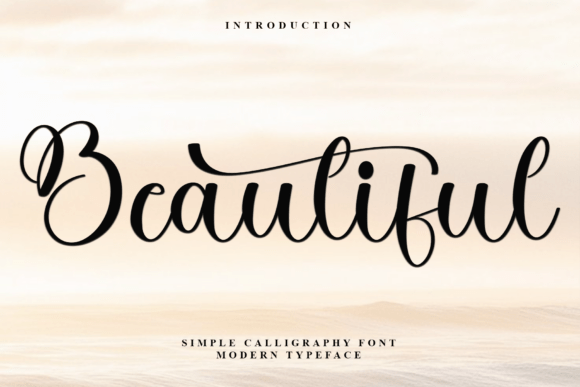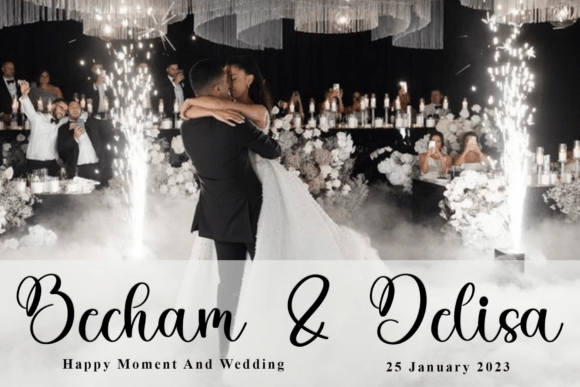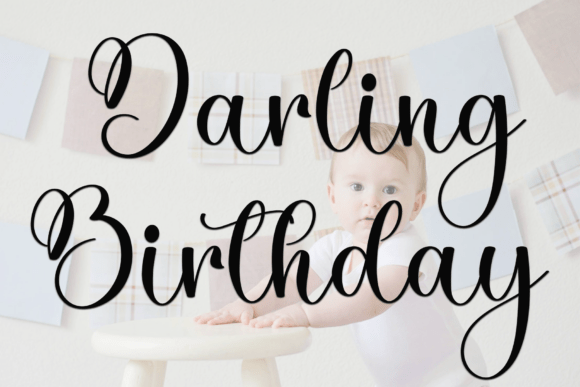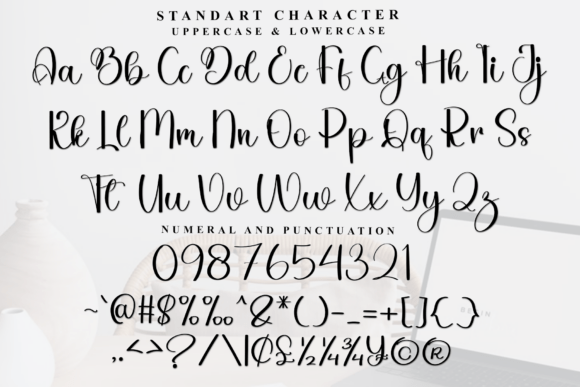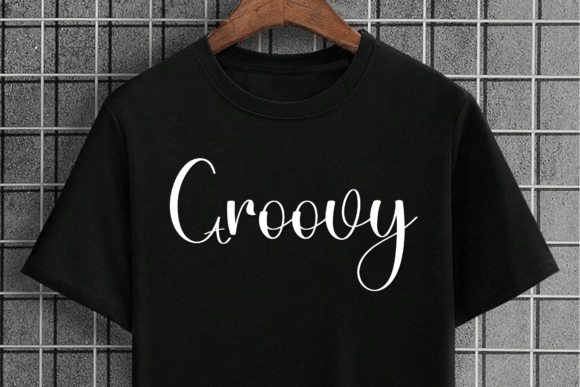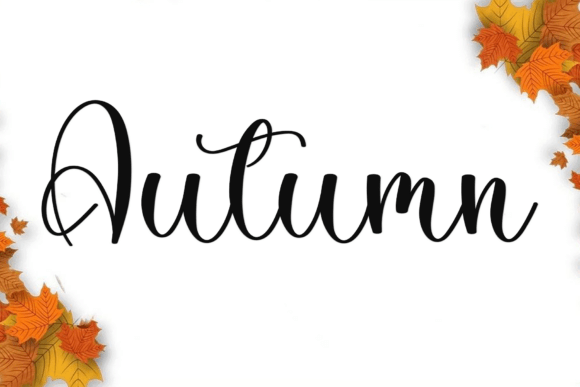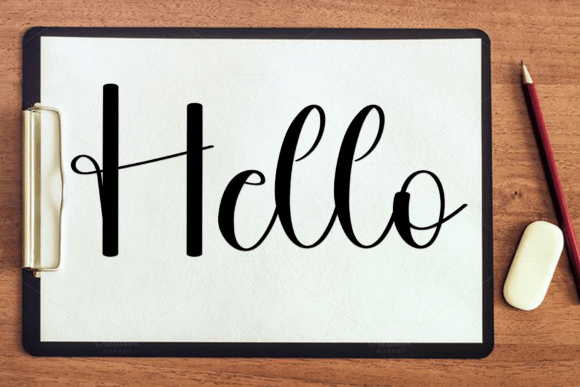
Get Ready to Deck the Halls with Beautiful Font
There’s nothing quite like the feeling of designing a holiday project, surrounded by twinkling lights, warm cups of hot cocoa, and the soft glow of a Christmas tree. The magic of the season is in the air, and the right font can make all the difference. That’s where Beautiful Font comes in – a festive and merry typeface that captures the spirit of the holiday season in all its glory.
Perfect for greeting cards, gift tags, and holiday-themed projects, Beautiful Font adds a touch of enchantment to your designs with its decorative elements and whimsical flair. Whether you’re a seasoned designer or just looking to add some holiday cheer to your typography, this font is a must-have. With its PUA encoding, you can access all of the amazing glyphs and ligatures with ease, making it a valuable addition to any designer’s toolkit.
Key Features of Beautiful Font
- Unique Characteristics: Includes a wide range of ligatures, swashes, and flourishes for a more elegant look
Designer Review: Beautiful Font
At first glance, Beautiful Font ✨ seems like a stunning addition to any design project. The elegant, cursive script is perfect for headings and titles, adding a touch of sophistication to any layout. The font is highly legible, even at smaller sizes, making it ideal for body text as well.
- ✨ Elegant, cursive script that adds a touch of sophistication
- ✨ Highly legible, even at smaller sizes
- ✨ Perfect for headings and titles
- ✨ Suitable for body text as well
However, there are some limitations:
- ⚠️ The font may be too ornate for some designs, potentially overwhelming the content
- ⚠️ May not be the best choice for sans-serif or modern designs
- ⚠️ Limited character set, which may cause issues with certain languages
Overall, Beautiful Font is a great addition to any designer’s toolkit. While it may not be suitable for every project, its elegance and legibility make it a solid choice for those looking to add a touch of sophistication to their designs.
Tips for Getting the Most Out of Beautiful Font
Use Beautiful Font for titles, headings, and other important text elements to create a visually appealing design.
Combine Beautiful Font with other decorative fonts to create a unique and eye-catching design.
Experiment with different font sizes and colors to create contrast and visual interest.
Beautiful Font is perfect for:
Wedding invitations and event materials.
Business cards and marketing materials.
Book covers and book titles.
Alternatives to “Beautiful Font” for Designers
1. Elegant Script
Elegant Script is a refined, cursive font ideal for formal and professional designs, such as wedding invitations, luxury brands, or high-end publications. It is more formal and sophisticated than Beautiful Font, making it suitable for occasions that demand elegance and sophistication.
Comparison: Elegant Script is more elegant and refined than Beautiful Font, making it better suited for formal designs. Beautiful Font is more versatile and can be used in a wider range of designs, including casual and informal projects.
2. Whimsy Pro
Whimsy Pro is a playful, handwritten font perfect for creative and artistic designs, such as children’s books, greeting cards, or fashion brands. It is more casual and playful than Beautiful Font, making it suitable for projects that require a touch of whimsy and personality.